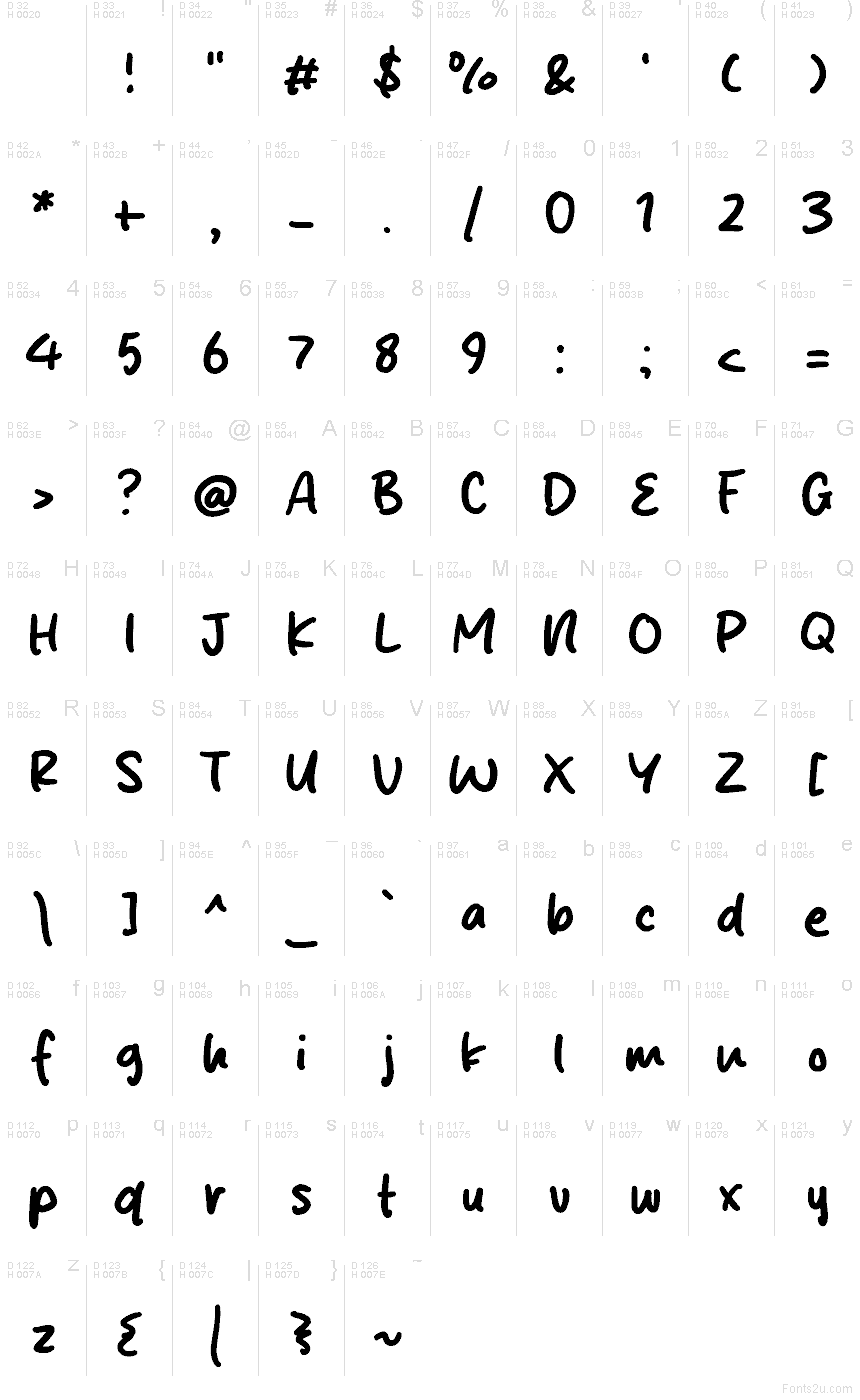
Pinky Flower by MJType is a free handwritten font with broad rounded strokes, oversized loops, and an easygoing uneven baseline. Changing widths and tilted forms keep the lettering lively.
A casual food or children's brand could use it for packaging, menus, and merchandise, where the soft shapes suggest a friendly handmade product. It also suits music posters and party invitations, turning names into loose, immediate lettering with the look of a quick felt-tip sketch.